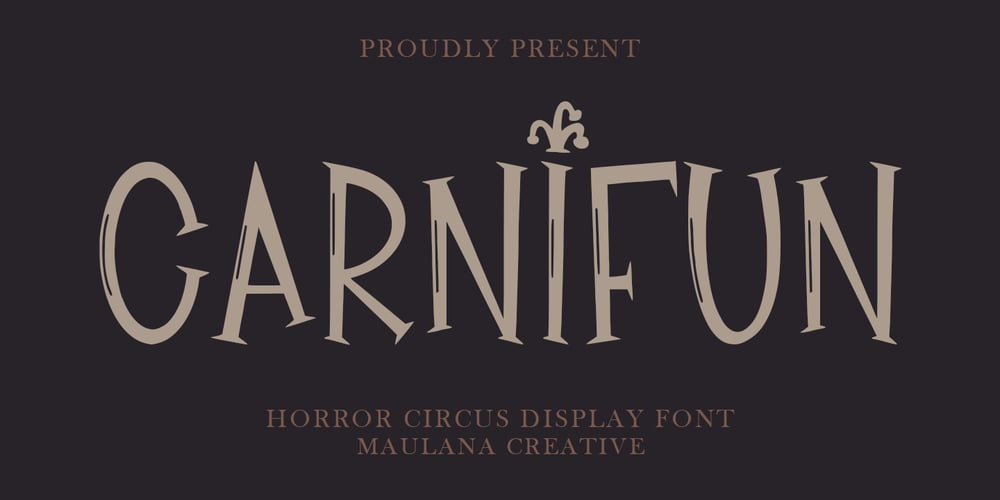
MC Carnifun
MC Carnifun font
MC Carnifun Font Family was designed by Gilang Maulana and published by Maulana Creative. MC Carnifun contains 1 styles and family package options. Carnifun horror circus display font. Heavy stroke, fun character with a bit of ligatures. To give you an extra creative work. Carnifun horror circus display font support multilingual more than 100+ language. This font is good for logo design, Social media, Movie Titles, Books Titles, a short text even a long text letter and good for your secondary text font with script or serif. Make a stunning work with Carnifun horror circus display font. Cheers, Maulana Creative